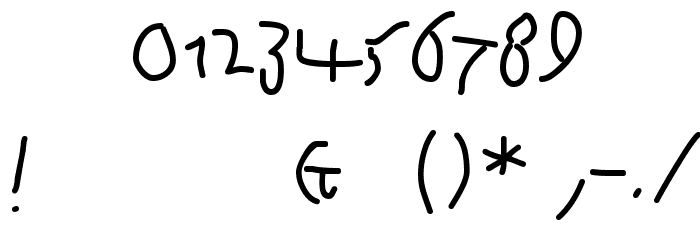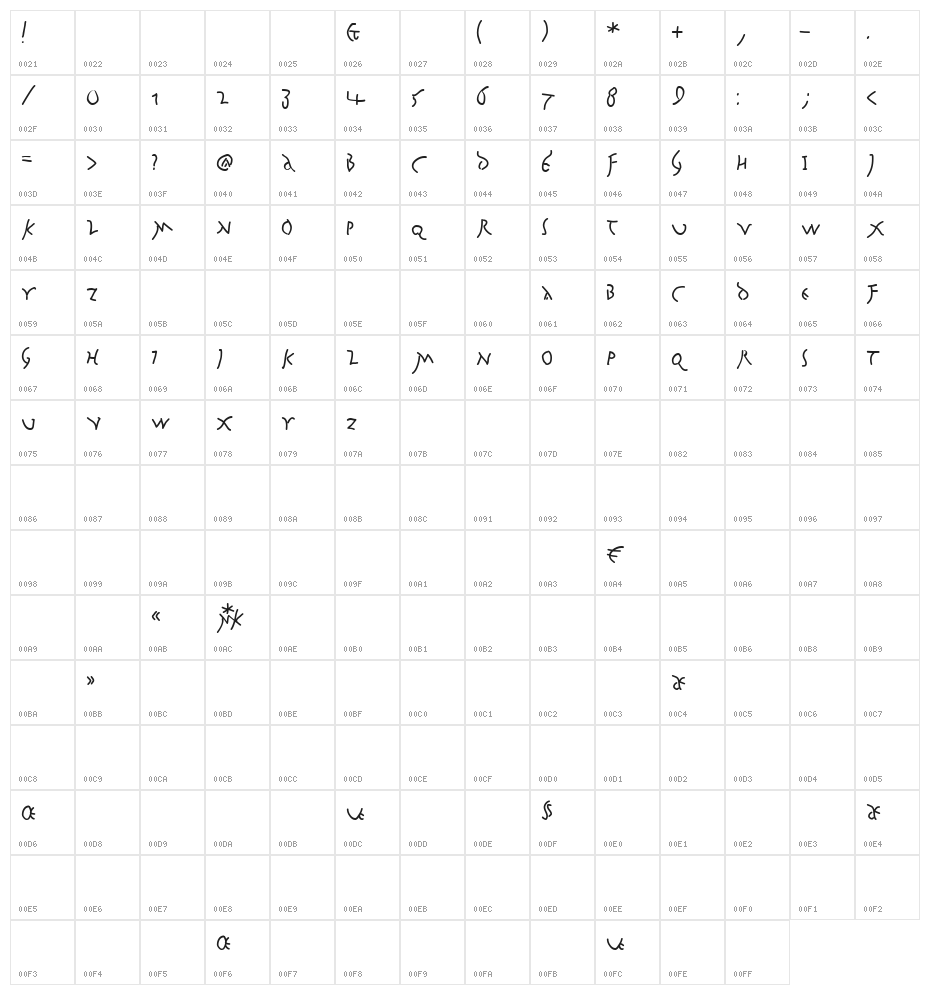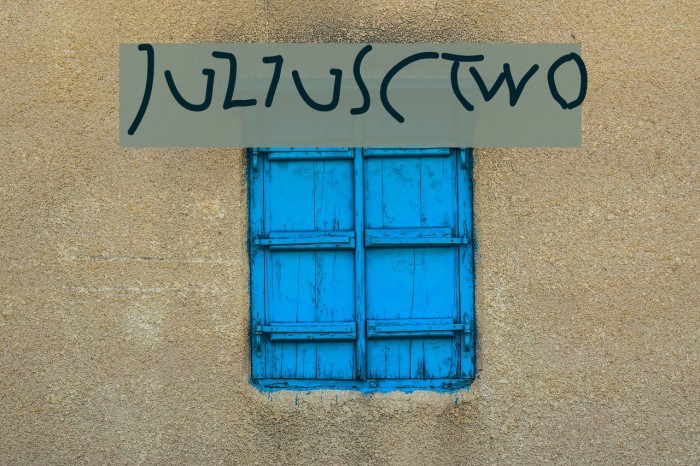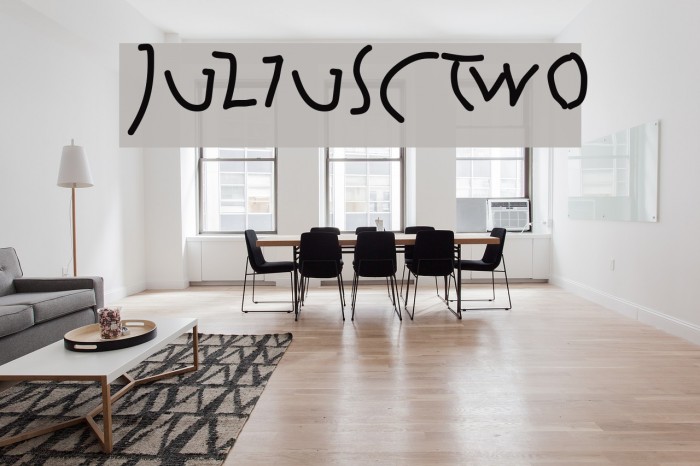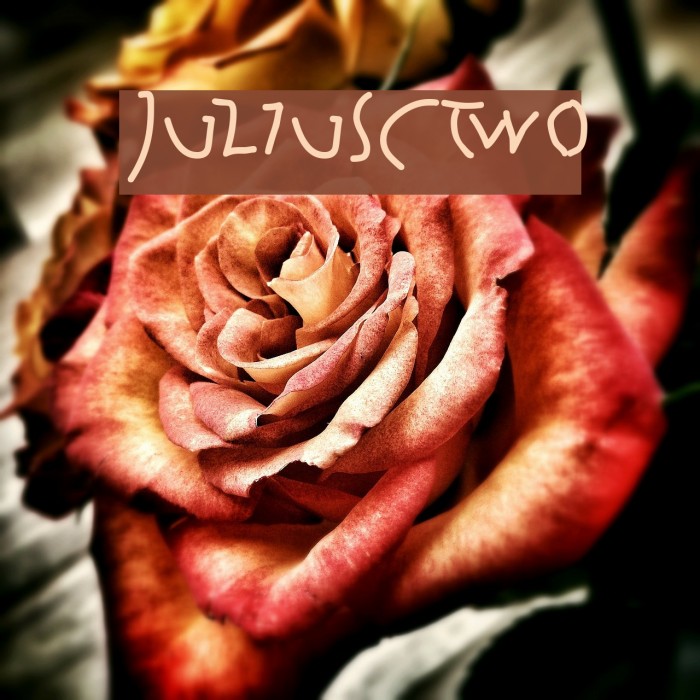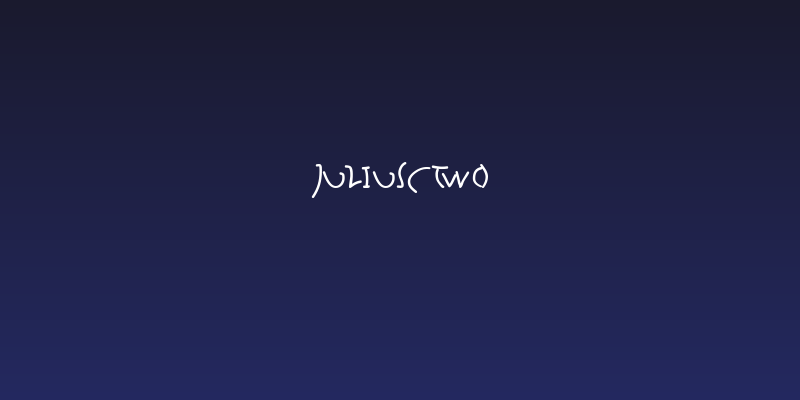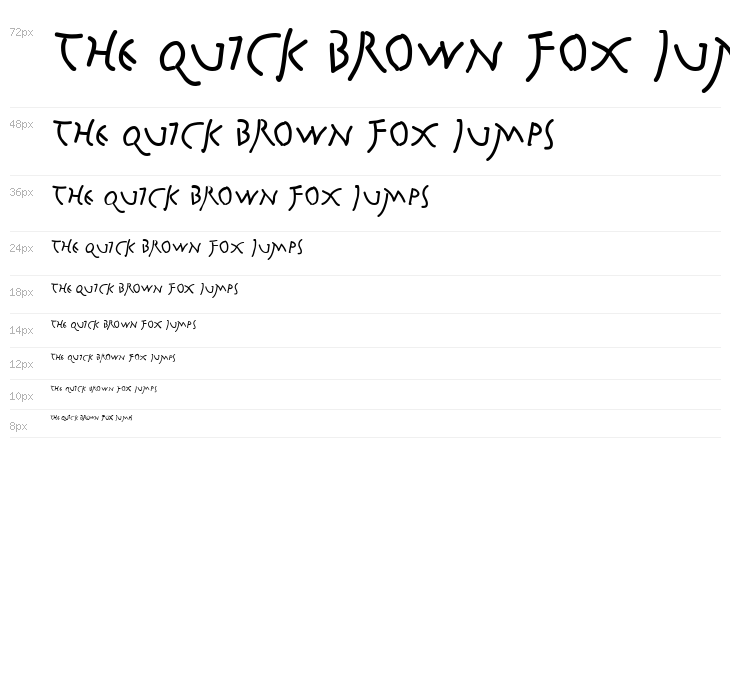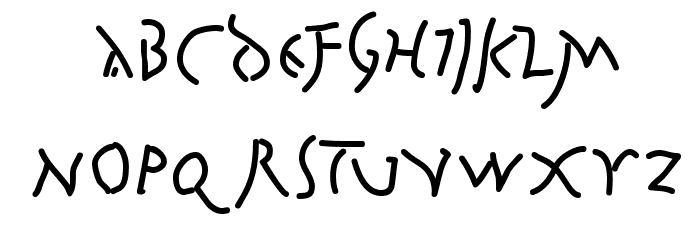
JuliusCTwo Font
JuliusCTwo Description
This font features a unique, hand-drawn style with a playful and artistic flair. The characters are slightly irregular, giving it a whimsical and organic feel. The uppercase and lowercase letters maintain a consistent style, with smooth curves and a casual appearance. Numbers and special characters are crafted with the same artistic touch, ensuring a cohesive look throughout. The font's overall design is reminiscent of handwritten notes or sketches, making it ideal for projects that require a personal or creative touch.
| Proposed Projects | Ideal for greeting cards, invitations, children's books, and creative branding projects. |